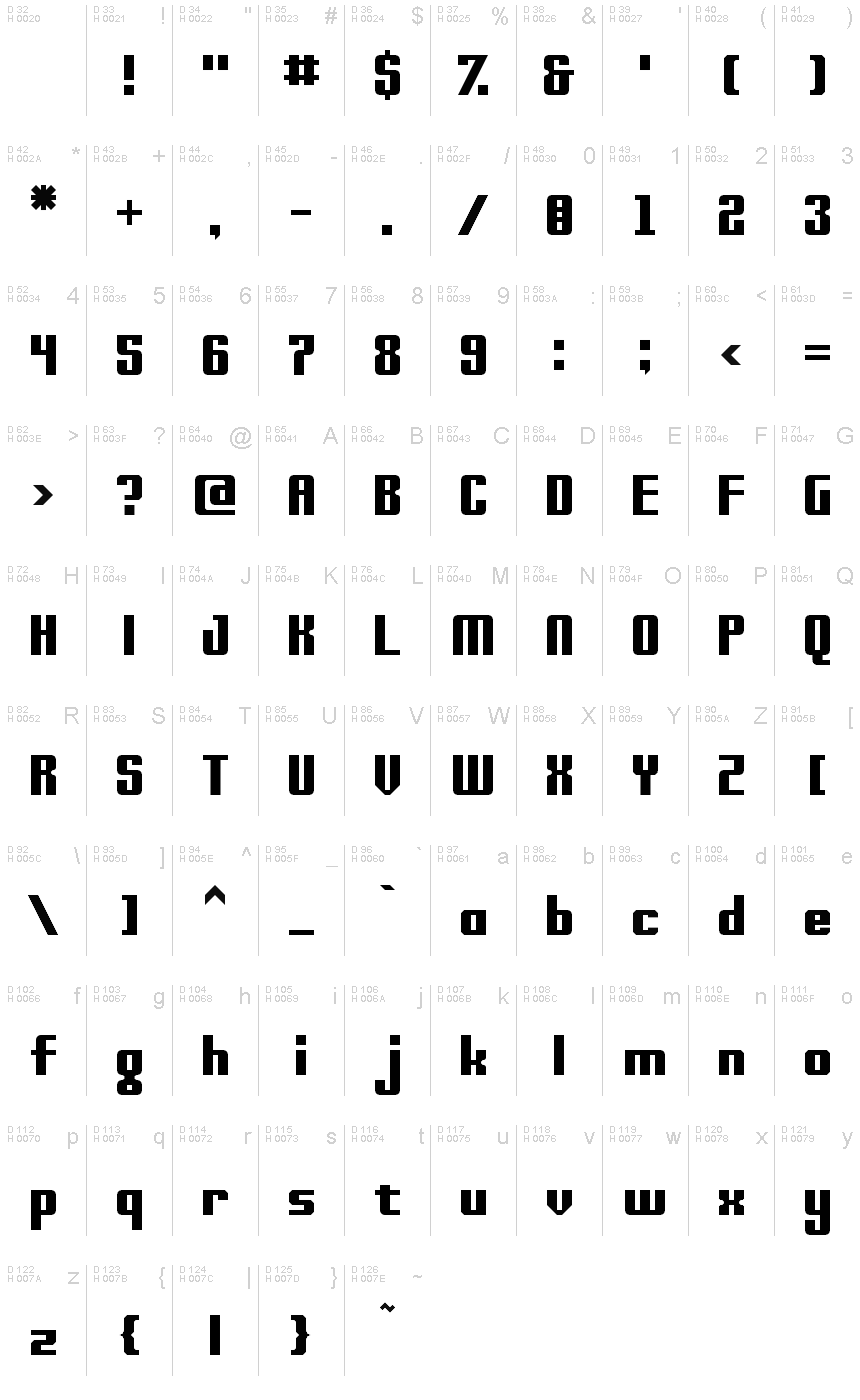
Sunari Regular
“Sunari” was built with FontStruct
Designer description: An asymmetrical boldtype. This will be used in rulebooks for the Freeform Limitless Adventure Kit (FLAK) pen-and-paper game system which I have developed since 2002.